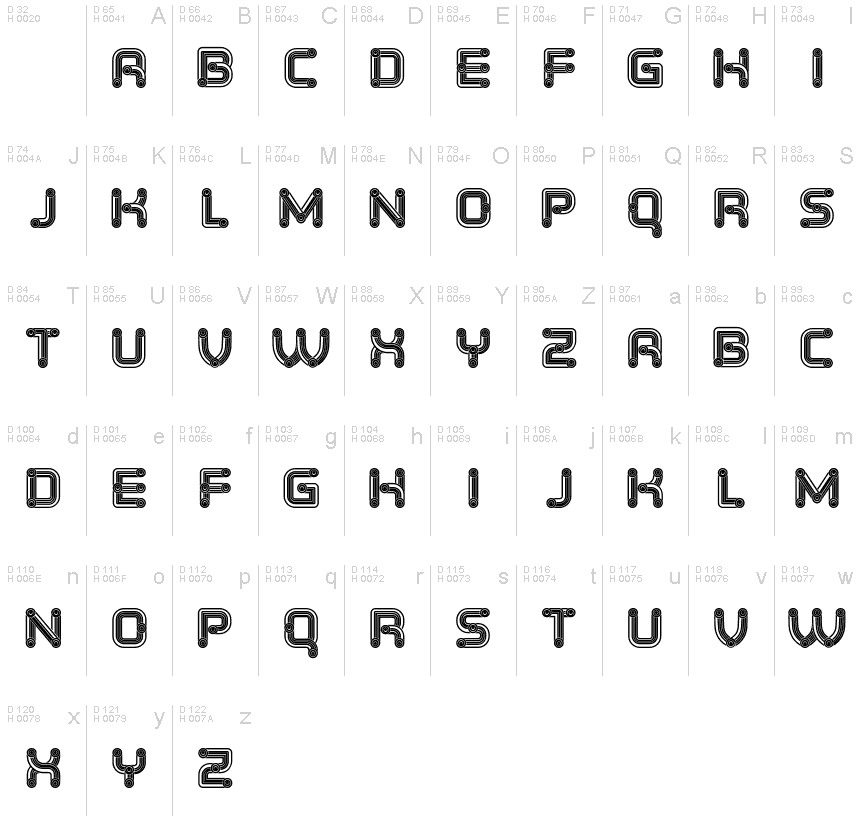
Majestic Black Regular
Majestic Black, a captivating display font by renowned designer Vladimir Nikolic, exudes an air of elegance and grandeur. With its decorative style and expanded width, this font demands attention and adds a touch of sophistication to any project. Perfect for luxury branding, high-end fashion magazines, prestigious invitations, or opulent event posters. Majestic Black effortlessly combines a sense of regality with modern aesthetics, making it equally suitable for glamorous wedding stationery or refined product packaging. Embrace the allure of Majestic Black and let your creativity shine in projects that require a touch of majestic splendor.
"Majestic" comes in Regular and Black version.